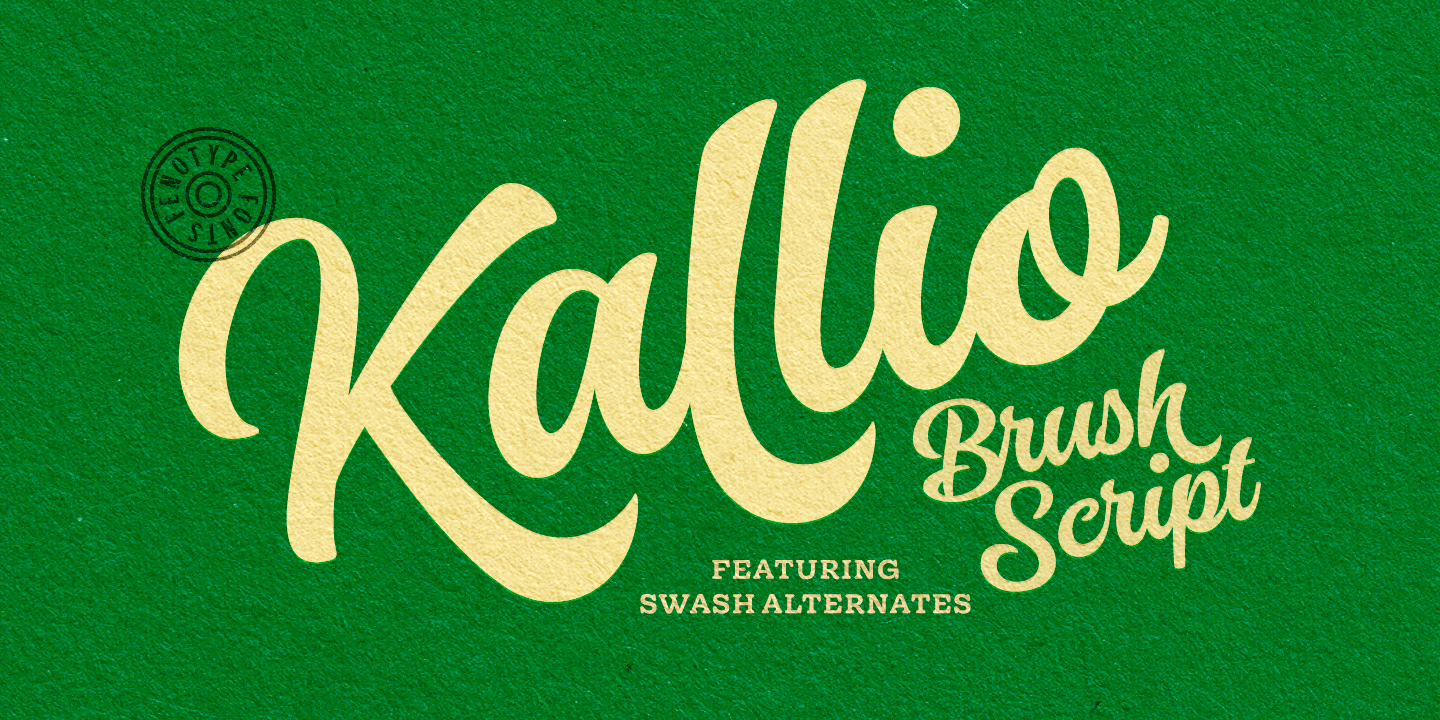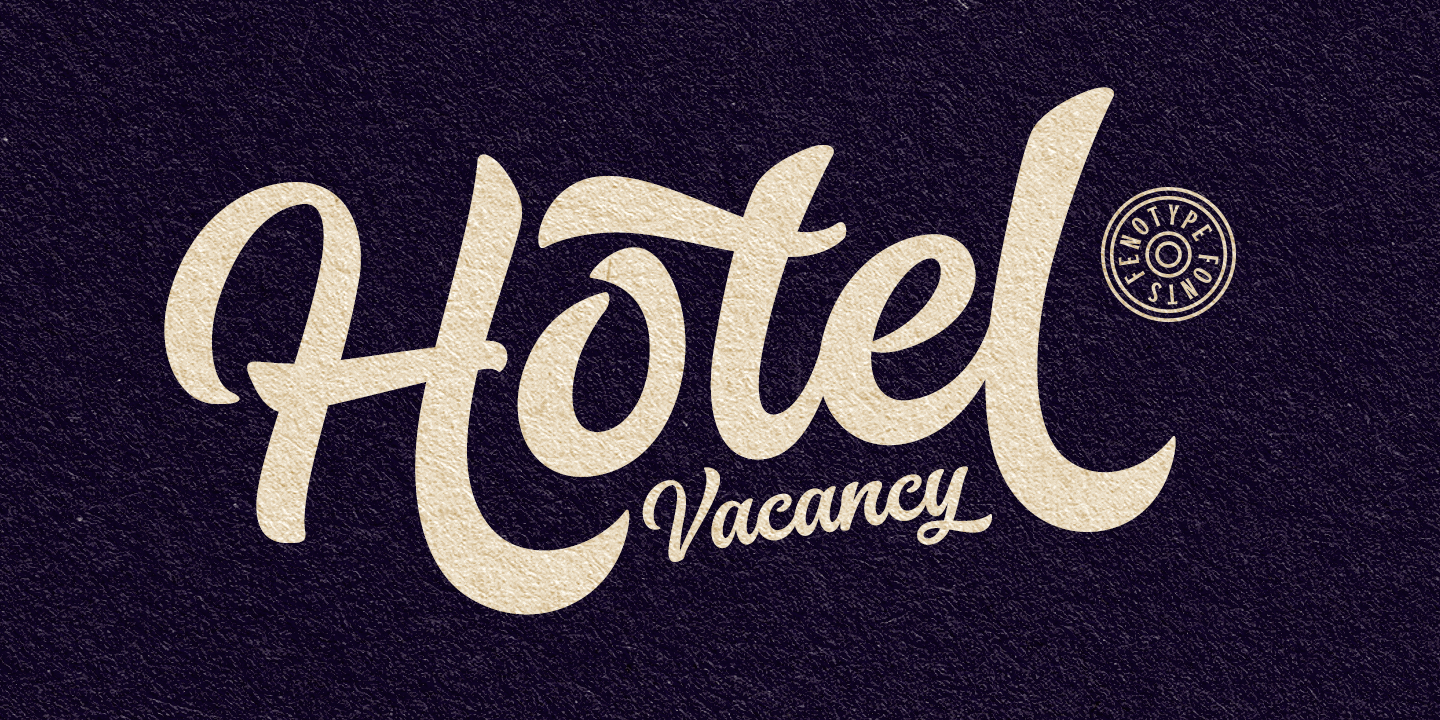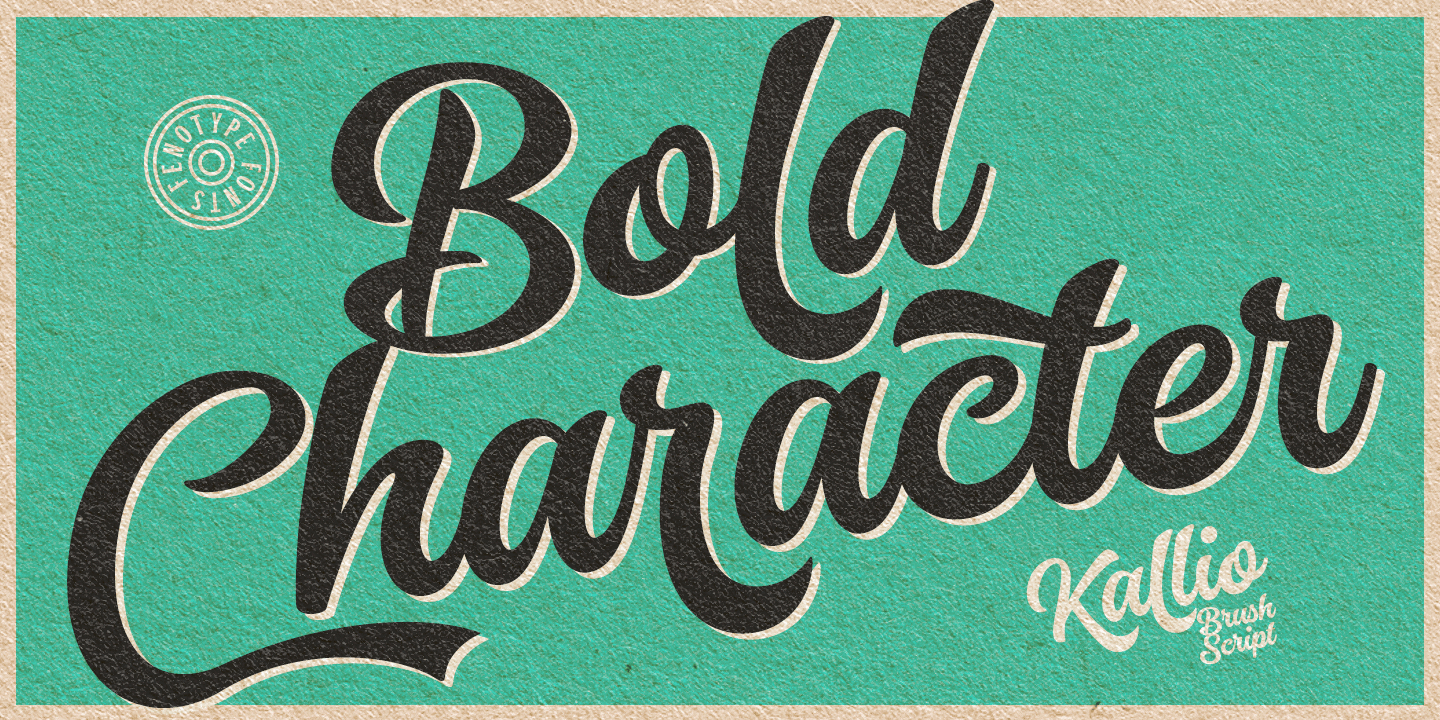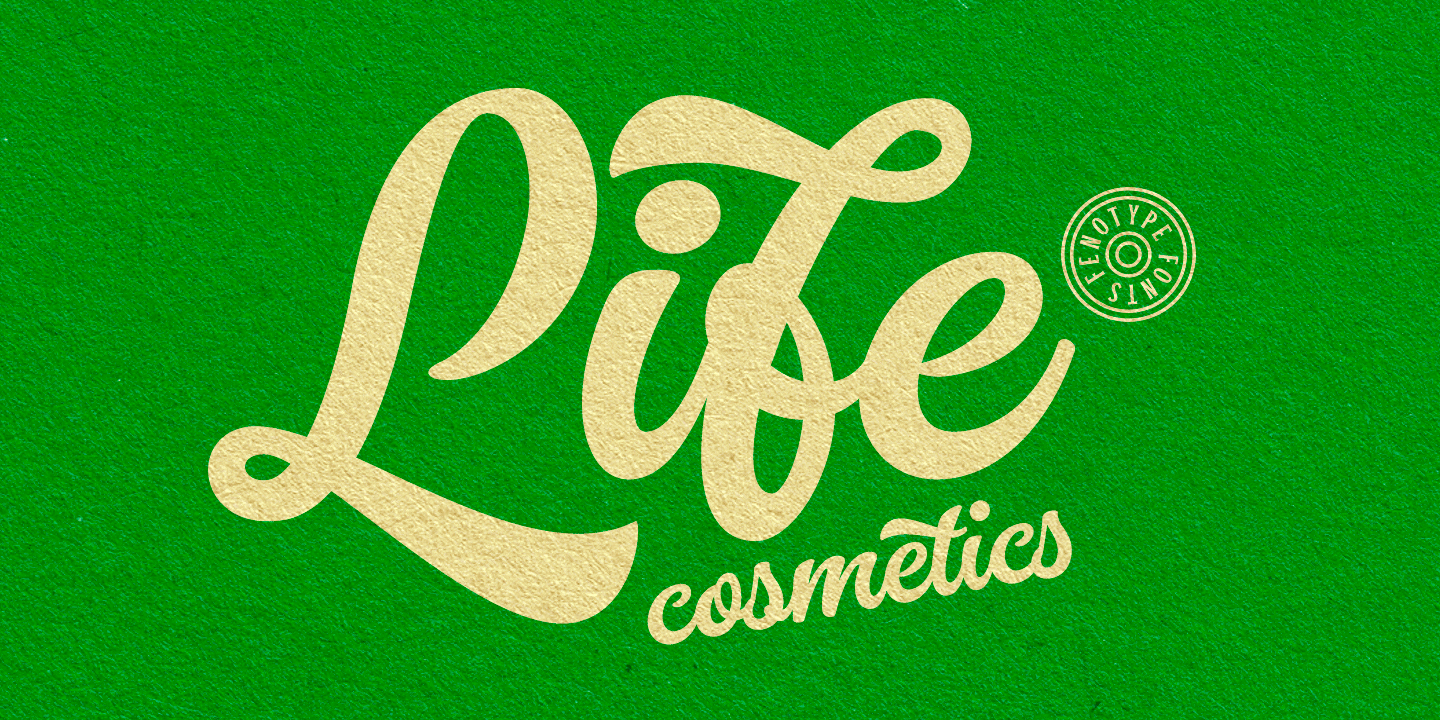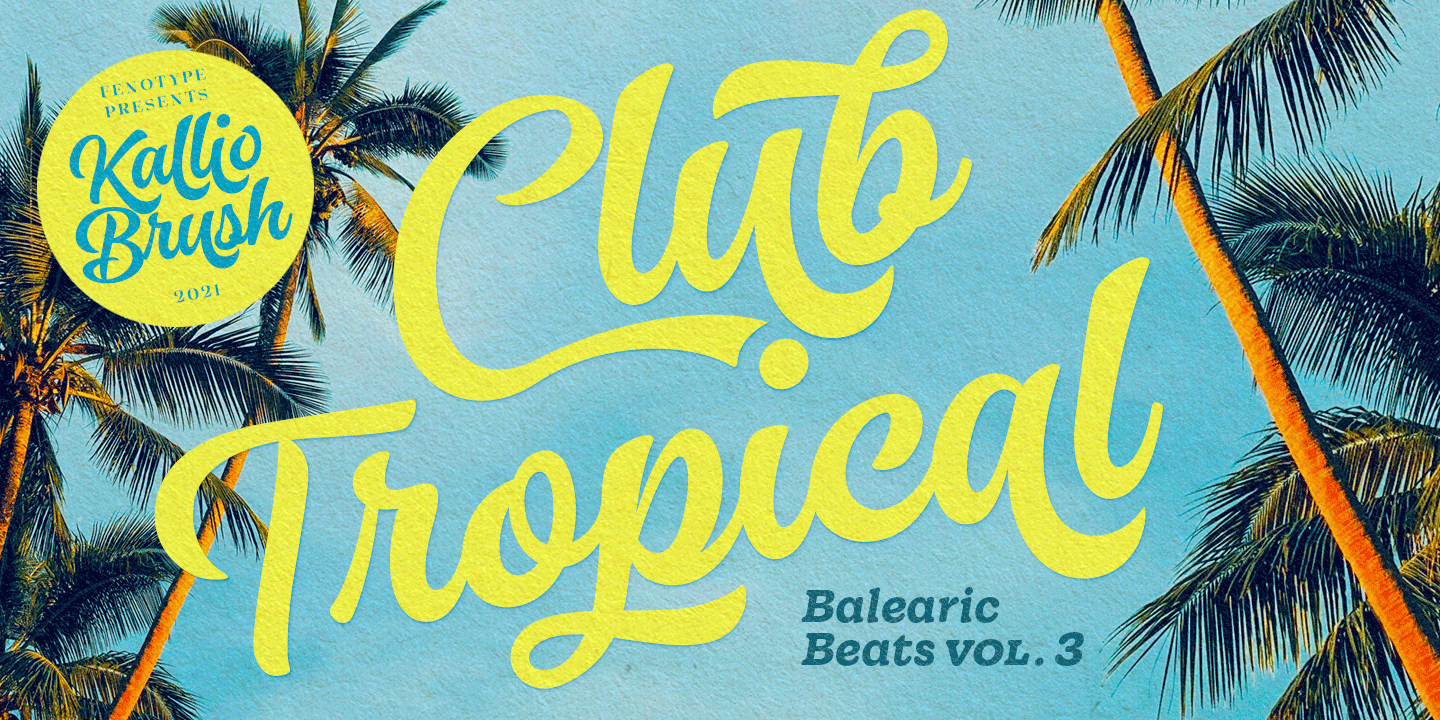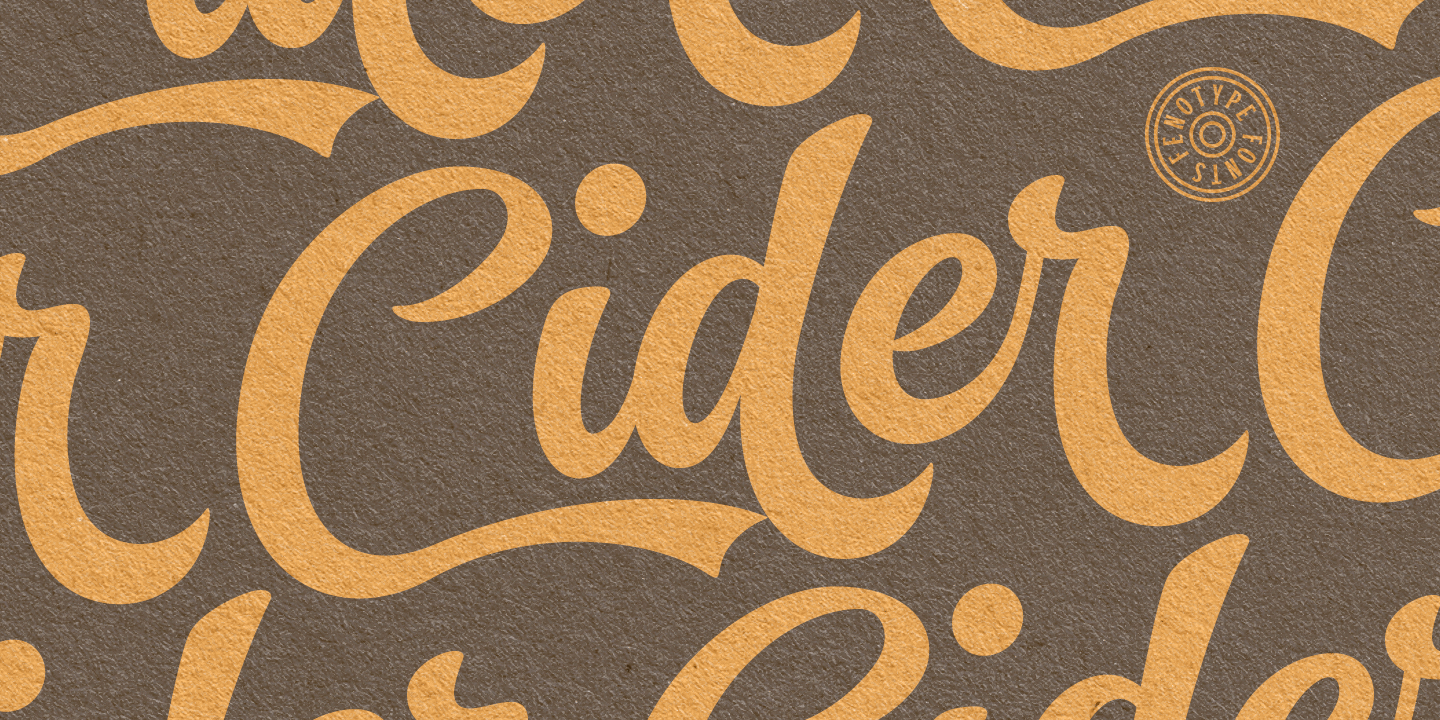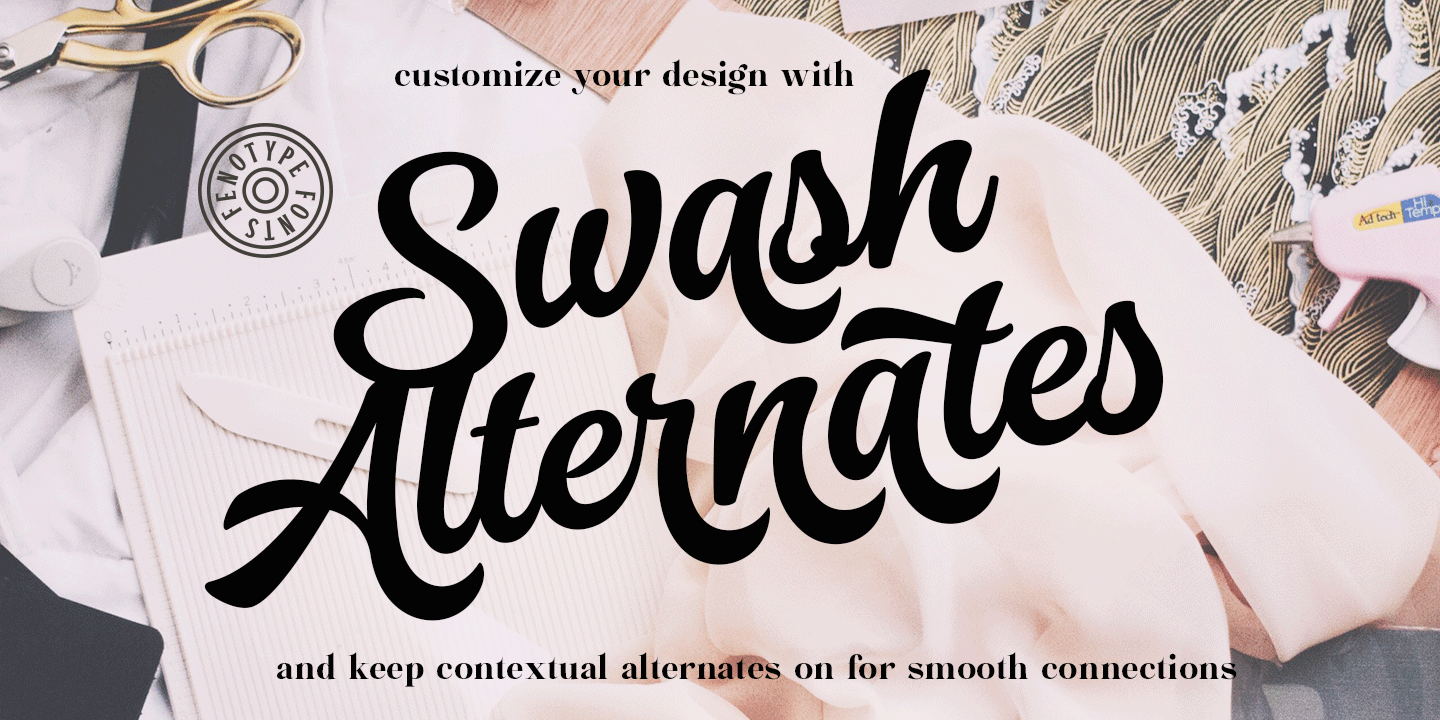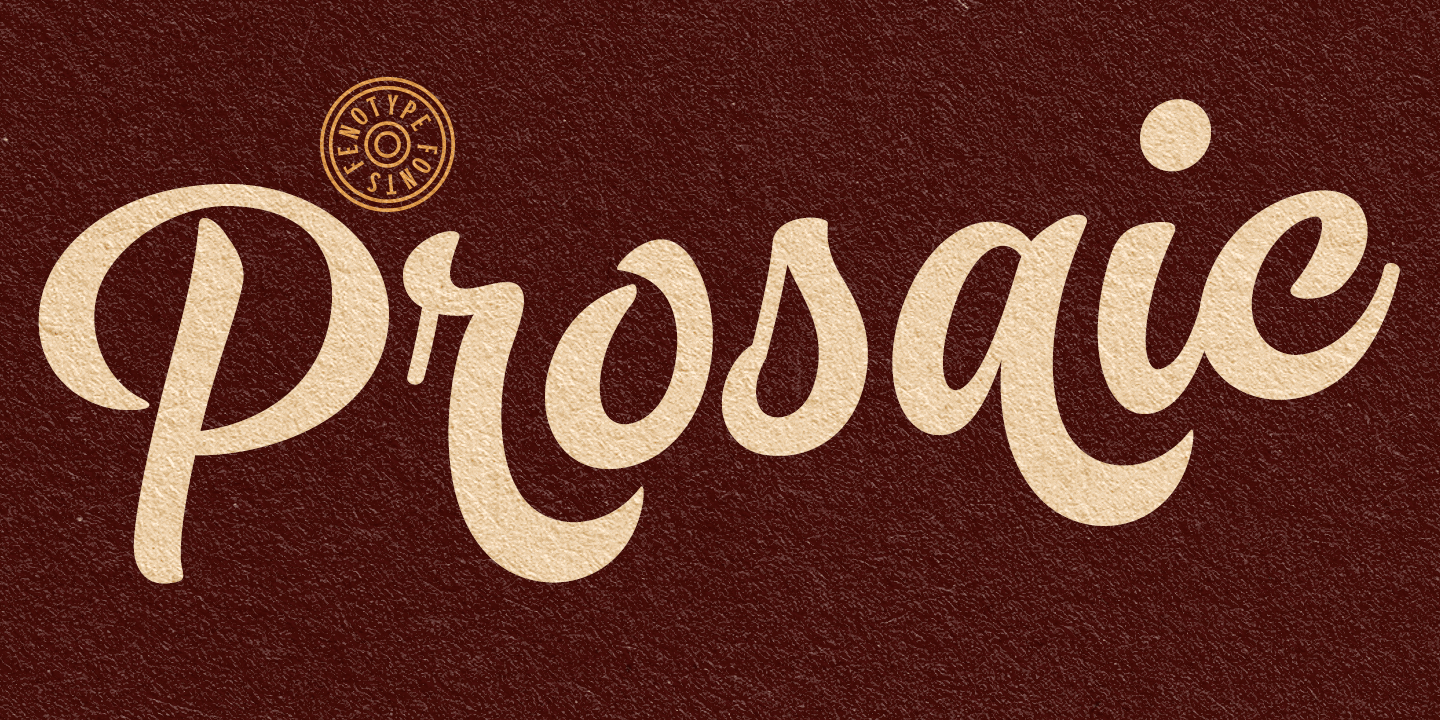
Kallio Brush
1 Font Family by Fenotype
Kallio is a Bold Brush Script with roots in American sign painting culture. Kallio is Finnish and means rock or cliff. Kallio is equipped with Contextual Alternates for smooth connections and Swash Alternates for every standard letter.